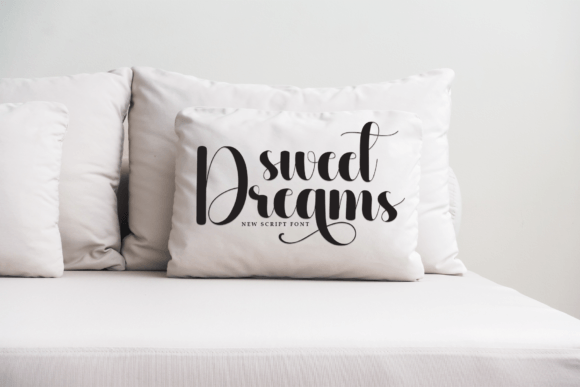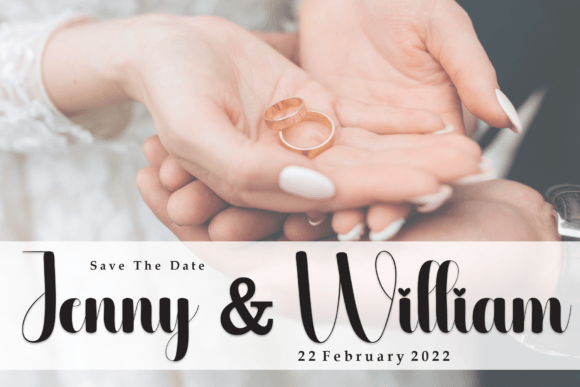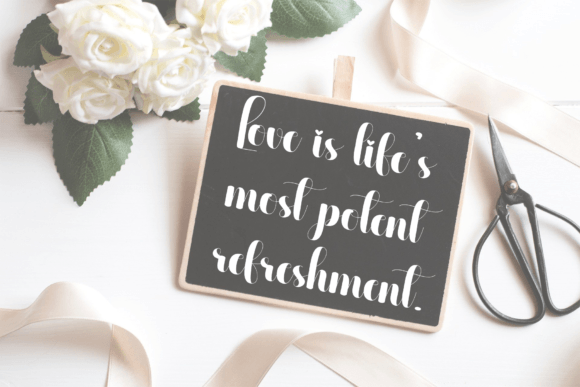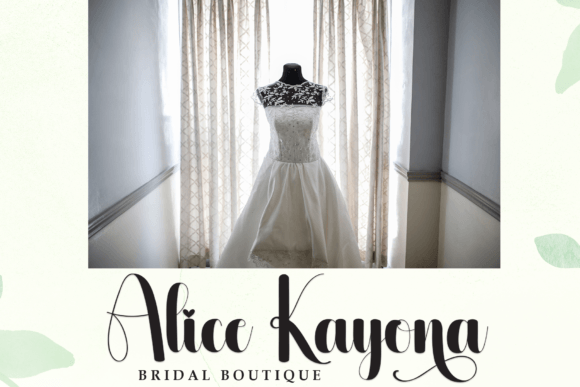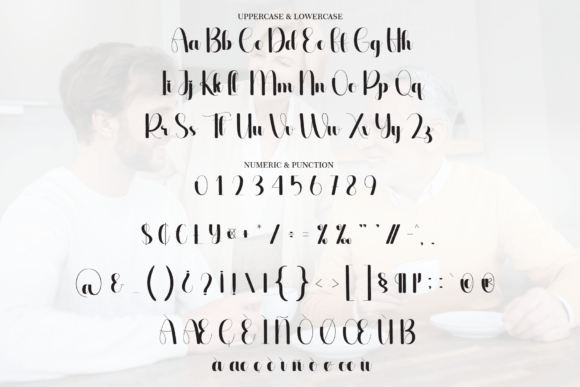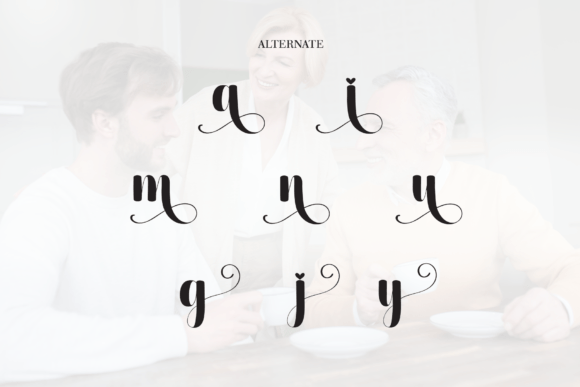
Introducing Harmony Font: The Sweet and Friendly Handwritten Font for Your Design Needs
Are you looking for a font that can add a touch of warmth and personality to your designs? Look no further than Harmony Font, a sweet and friendly handwritten font that’s perfect for creating beautiful wedding invitations, cards, and other designs that require a lovely touch. In this article, we’ll take a closer look at Harmony Font, its features, and how you can use it to elevate your designs.
What is Harmony Font?
Harmony Font is a fresh and casual handwritten font that’s designed to bring a sense of joy and harmony to your designs. With its smooth and flowing lines, this font is ideal for creating designs that require a personal and friendly touch. Whether you’re a designer, crafter, or DIY enthusiast, Harmony Font is a great addition to your font collection.
Key Features of Harmony Font
- Sweet and Friendly Design: Harmony Font has a sweet and friendly design that’s perfect for creating designs that require a personal touch.
- Fresh and Casual: This font has a fresh and casual feel that’s ideal for creating designs that are modern and trendy.
- Handwritten Style: Harmony Font has a handwritten style that’s perfect for creating designs that require a personal and human touch.
- Easy to Read: This font is easy to read, making it perfect for creating designs that require a clear and concise message.
Uses of Harmony Font
Harmony Font is a versatile font that can be used for a variety of design projects, including:
- Wedding Invitations: This font is perfect for creating beautiful wedding invitations that require a personal and romantic touch.
- Cards: Harmony Font is great for creating greeting cards, birthday cards, and other types of cards that require a friendly and personal touch.
- DIY Projects: This font is perfect for DIY enthusiasts who want to create personalized designs for their craft projects.
- Branding: Harmony Font can be used for branding projects that require a friendly and approachable tone.
Tips for Using Harmony Font
Here are some tips for using Harmony Font in your designs:
- Pair it with Other Fonts: Harmony Font can be paired with other fonts to create a unique and interesting design.
- Use it for Headings: This font is perfect for creating headings and titles that require a friendly and personal touch.
- Experiment with Colors: Harmony Font looks great in a variety of colors, so don’t be afraid to experiment and find the perfect color for your design.
Harmony Font is a sweet and friendly handwritten font that’s perfect for designers, crafters, and DIY enthusiasts who want to add a personal touch to their designs. With its fresh and casual design, this font is ideal for creating beautiful wedding invitations, cards, and other designs that require a lovely touch. Whether you’re a seasoned designer or just starting out, Harmony Font is a great addition to your font collection.